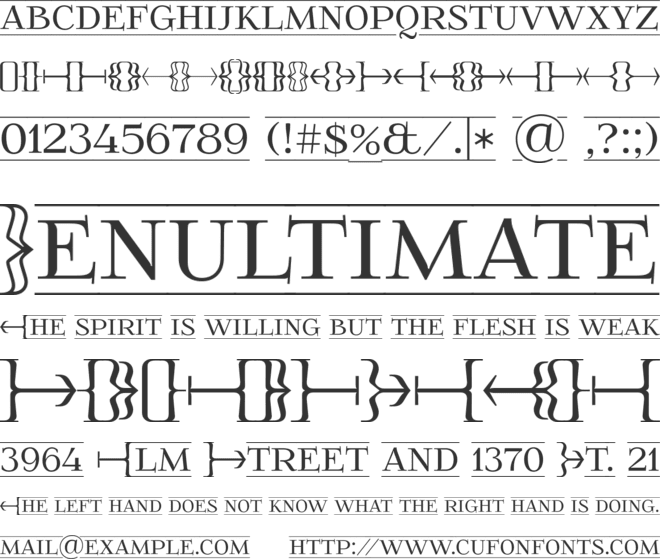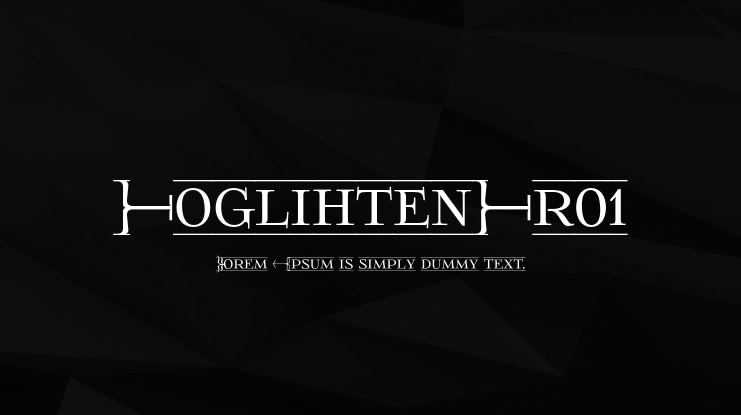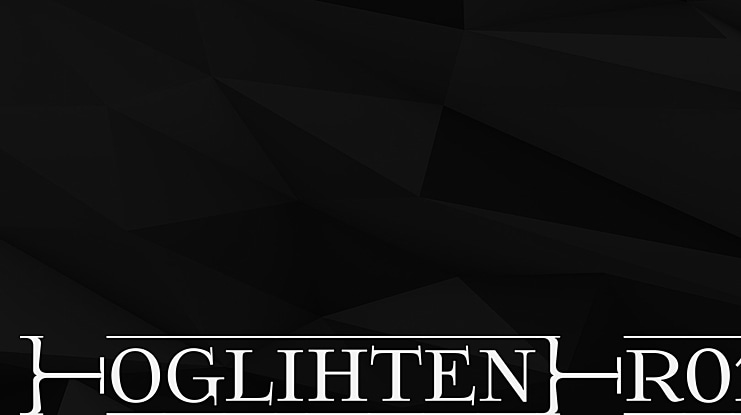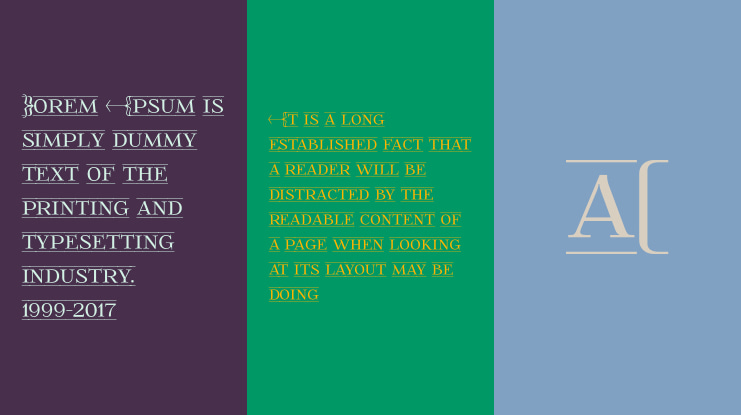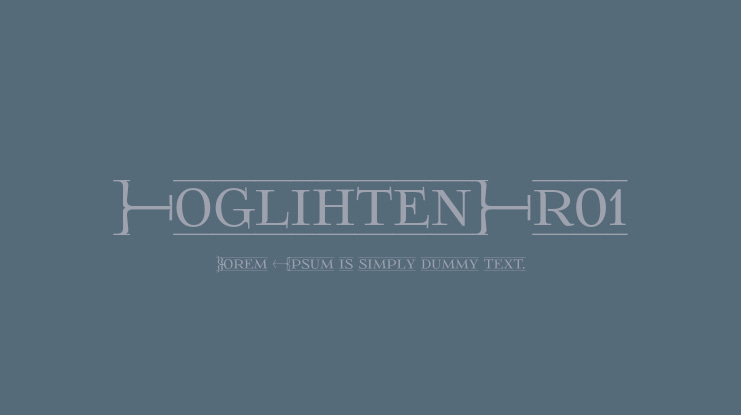
FoglihtenFr01 Font Family
Dec­o­ra­tive Set of Frames and Arrows with access direct from Keyboard, based on Foglihten PetiteCaps. See Examples of use in FoglihtenFr01.pdf!